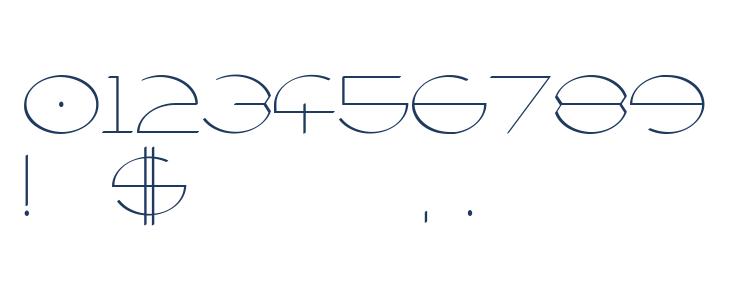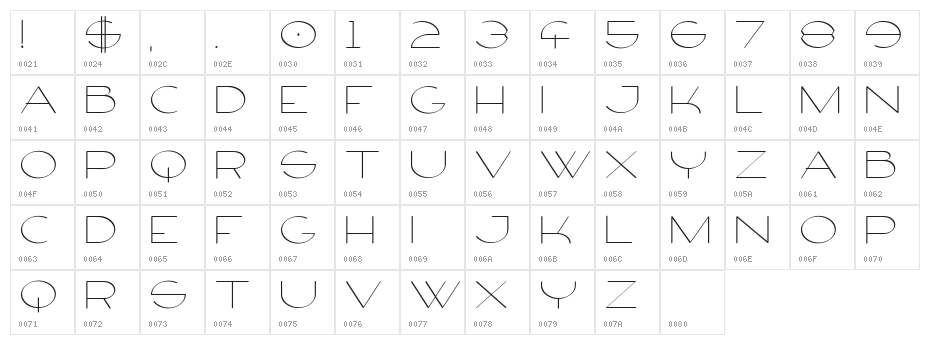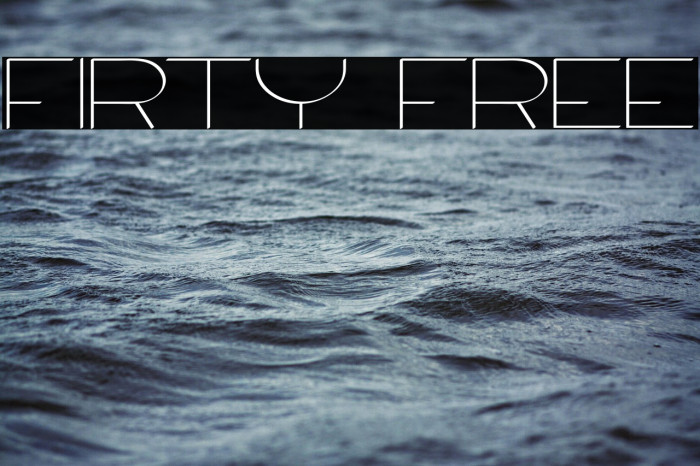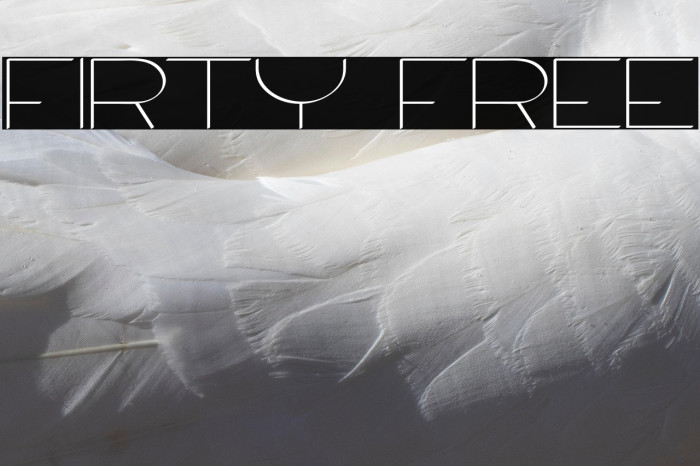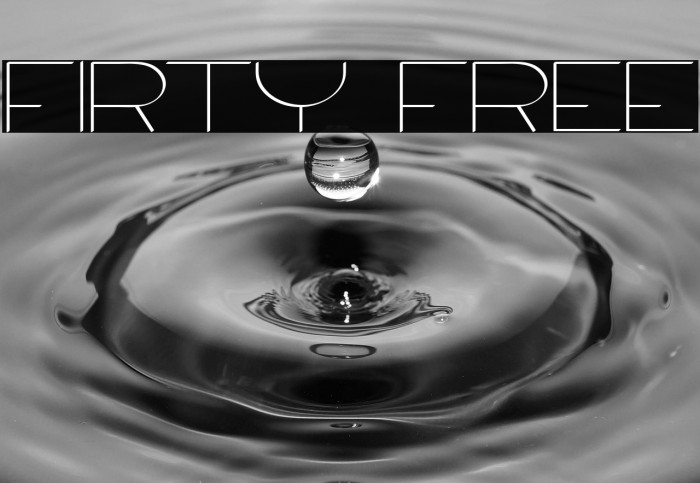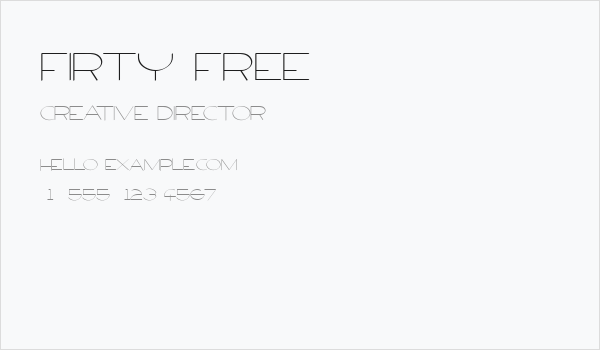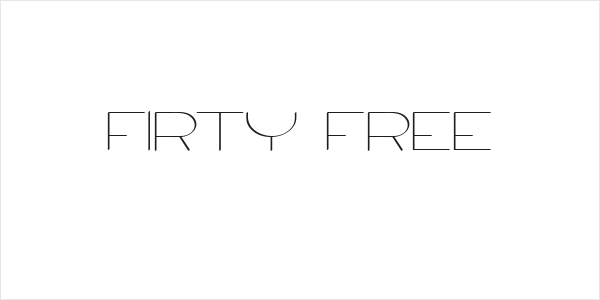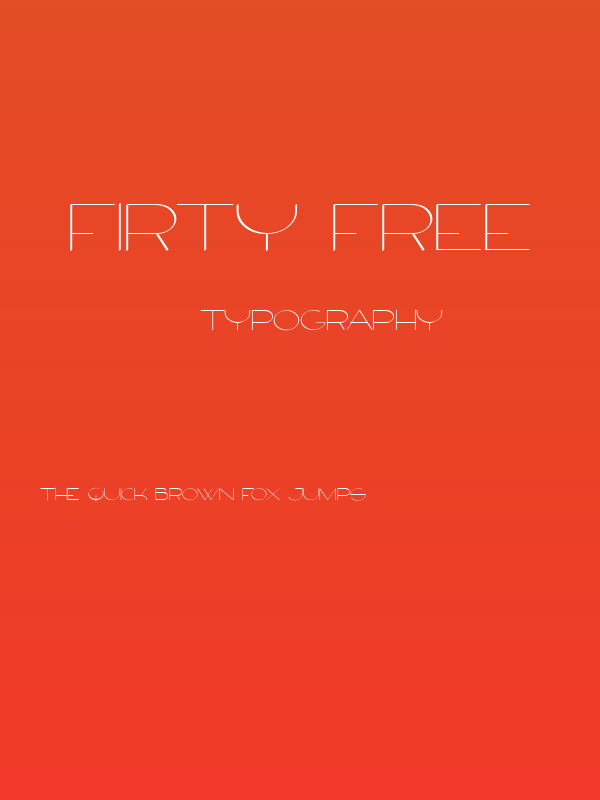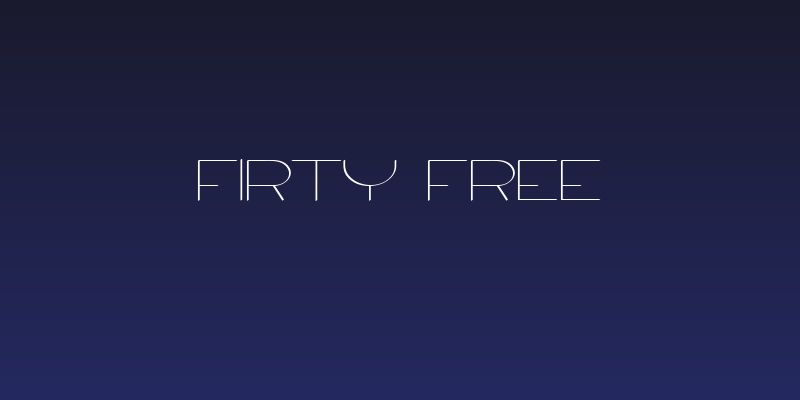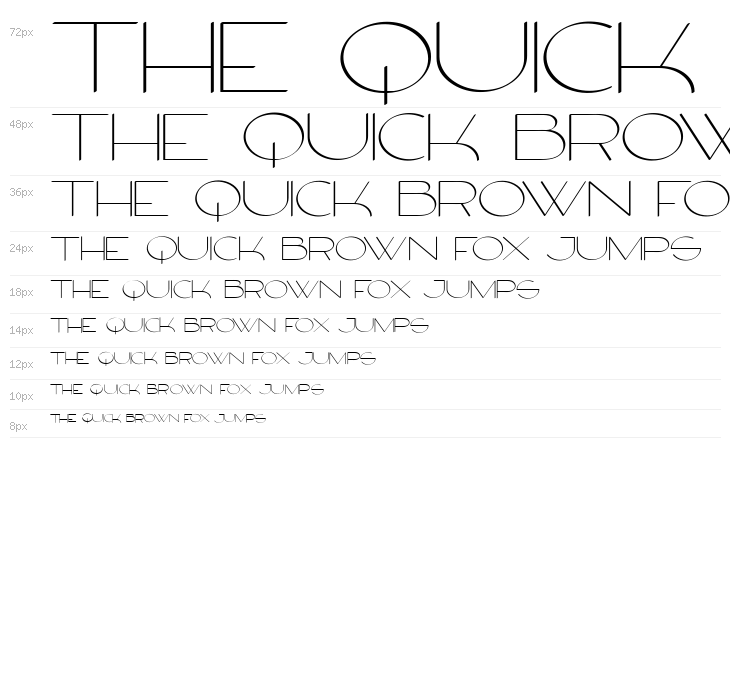
Firty Free Font
Firty Free Description
This font features a sleek and modern design with a geometric and minimalist aesthetic. The characters are composed of thin lines with consistent stroke width, creating a sense of elegance and sophistication. The uppercase and lowercase letters share a uniform style, with a focus on symmetry and balance. The numbers and special characters maintain the same design principles, ensuring a cohesive look across all elements. The font's clean and uncluttered appearance makes it suitable for a variety of design applications.
Proposed ProjectsIdeal for modern branding, tech-related projects, minimalist posters, and editorial design.